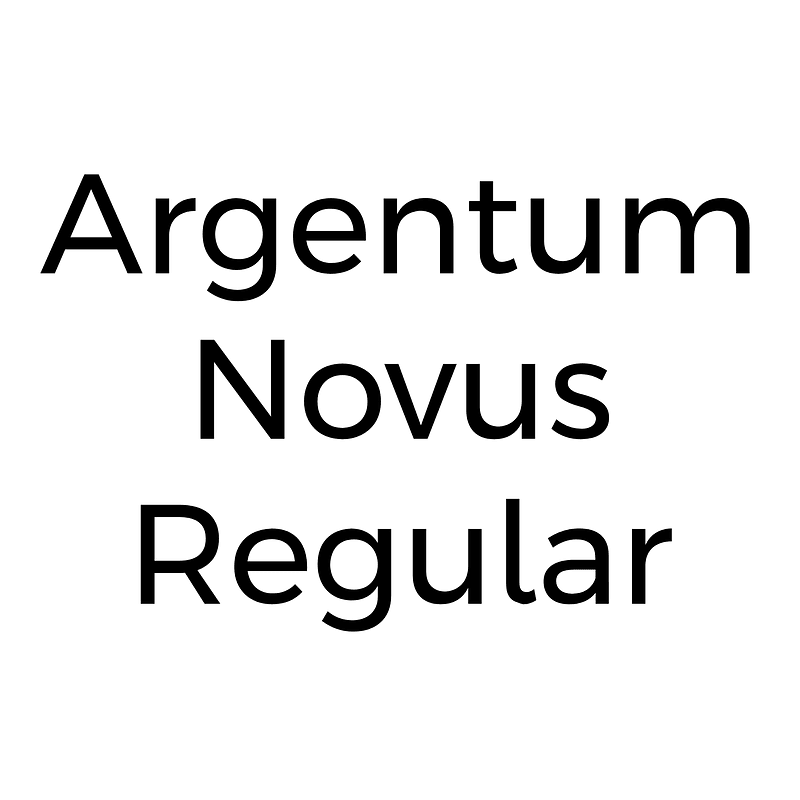
Argentum Novus Font - Online fonts — a site about fonts that has tens of categories and thousands of typefaces Download and install the argentum novus font for free from ffonts.net. Argentum novus is developed from montserrat and argentum sans. This font features bold, clean lines with a. Argentum novus is a font. ️ this font has been. The typeface contains 18 files and supports 63 languages. Download and install the argentum novus bold font for free from ffonts.net.
Online fonts — a site about fonts that has tens of categories and thousands of typefaces Argentum novus is developed from montserrat and argentum sans. ️ this font has been. Download and install the argentum novus font for free from ffonts.net. Download and install the argentum novus bold font for free from ffonts.net. Argentum novus is a font. This font features bold, clean lines with a. The typeface contains 18 files and supports 63 languages.
Argentum novus is developed from montserrat and argentum sans. The typeface contains 18 files and supports 63 languages. Download and install the argentum novus font for free from ffonts.net. ️ this font has been. Online fonts — a site about fonts that has tens of categories and thousands of typefaces Download and install the argentum novus bold font for free from ffonts.net. This font features bold, clean lines with a. Argentum novus is a font.
Argentum Novus Regular Free fonts on
Argentum novus is developed from montserrat and argentum sans. The typeface contains 18 files and supports 63 languages. Download and install the argentum novus bold font for free from ffonts.net. This font features bold, clean lines with a. Online fonts — a site about fonts that has tens of categories and thousands of typefaces
The typeface contains 18 files and supports 63 languages. Argentum novus is developed from montserrat and argentum sans. Download and install the argentum novus font for free from ffonts.net. This font features bold, clean lines with a. Online fonts — a site about fonts that has tens of categories and thousands of typefaces
Argentum novus is a font. The typeface contains 18 files and supports 63 languages. Download and install the argentum novus bold font for free from ffonts.net. Download and install the argentum novus font for free from ffonts.net. Online fonts — a site about fonts that has tens of categories and thousands of typefaces
Download and install the argentum novus bold font for free from ffonts.net. ️ this font has been. Argentum novus is developed from montserrat and argentum sans. Argentum novus is a font. Online fonts — a site about fonts that has tens of categories and thousands of typefaces
This font features bold, clean lines with a. ️ this font has been. Argentum novus is a font. Download and install the argentum novus font for free from ffonts.net. Argentum novus is developed from montserrat and argentum sans.
Download and install the argentum novus bold font for free from ffonts.net. Download and install the argentum novus font for free from ffonts.net. Argentum novus is developed from montserrat and argentum sans. ️ this font has been. The typeface contains 18 files and supports 63 languages.
Download Novus font
The typeface contains 18 files and supports 63 languages. Download and install the argentum novus bold font for free from ffonts.net. Online fonts — a site about fonts that has tens of categories and thousands of typefaces Download and install the argentum novus font for free from ffonts.net. ️ this font has been.
Novus Font FREE Download & Similar Fonts FontGet
The typeface contains 18 files and supports 63 languages. Argentum novus is developed from montserrat and argentum sans. Download and install the argentum novus font for free from ffonts.net. Online fonts — a site about fonts that has tens of categories and thousands of typefaces Argentum novus is a font.
Argentum Novus Is A Font.
The typeface contains 18 files and supports 63 languages. Online fonts — a site about fonts that has tens of categories and thousands of typefaces Download and install the argentum novus bold font for free from ffonts.net. This font features bold, clean lines with a.
️ This Font Has Been.
Download and install the argentum novus font for free from ffonts.net. Argentum novus is developed from montserrat and argentum sans.